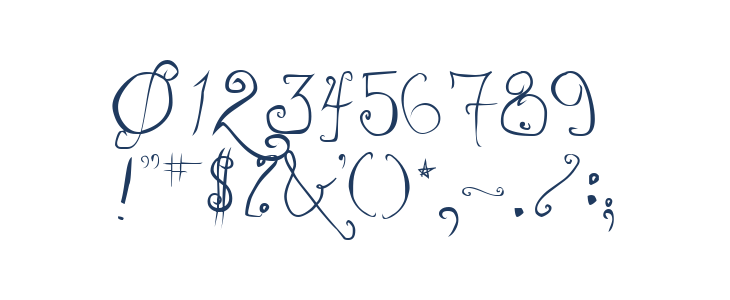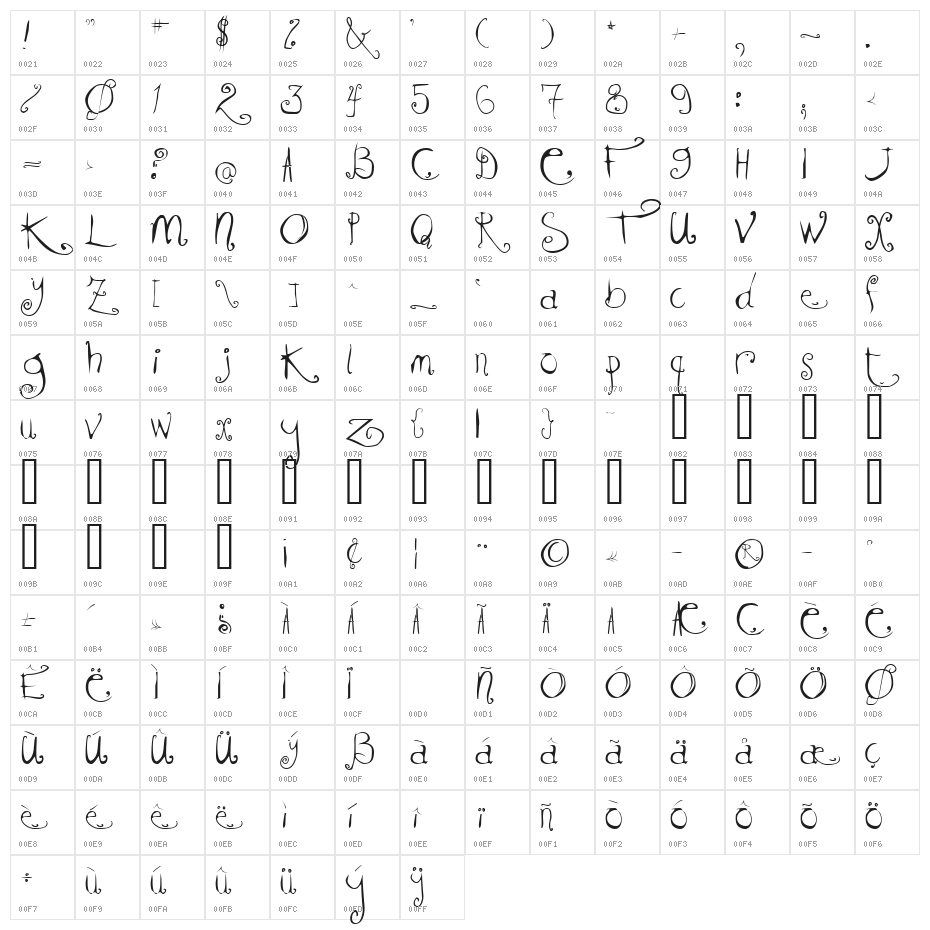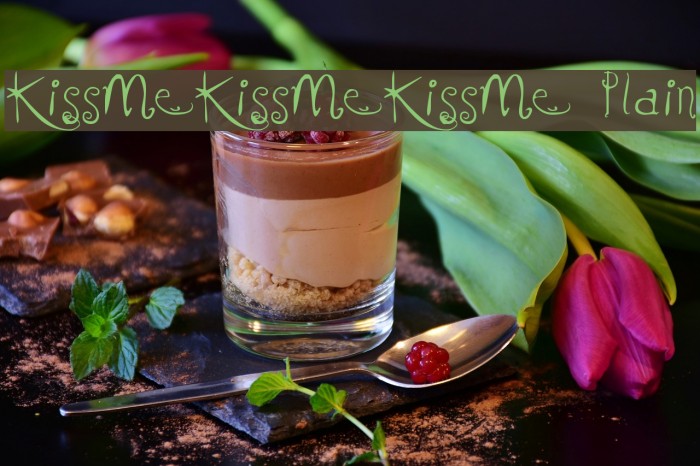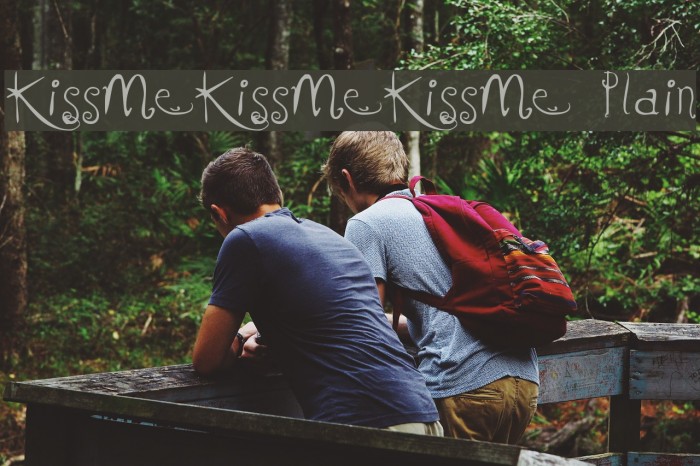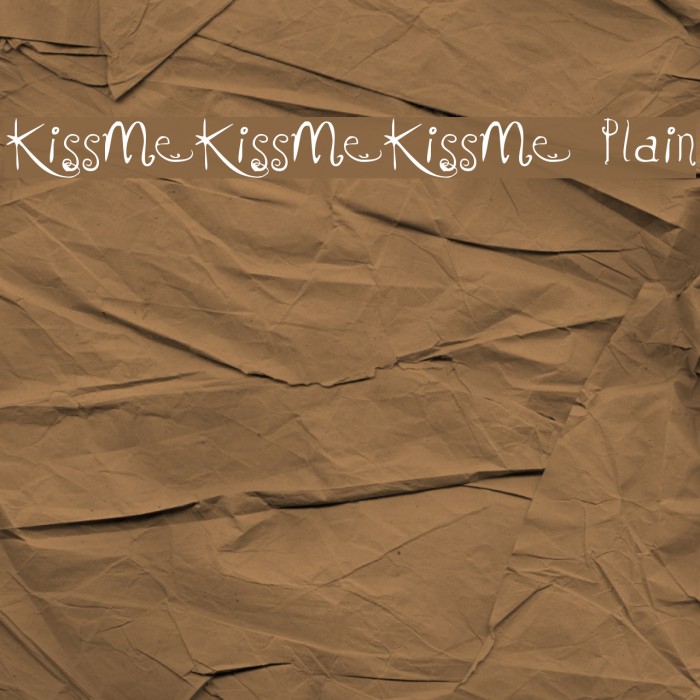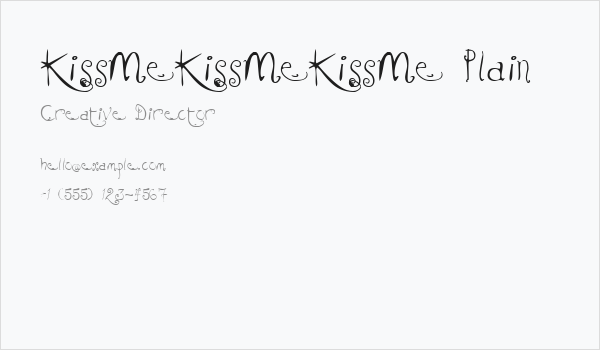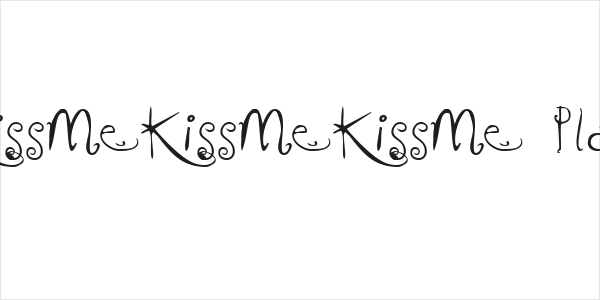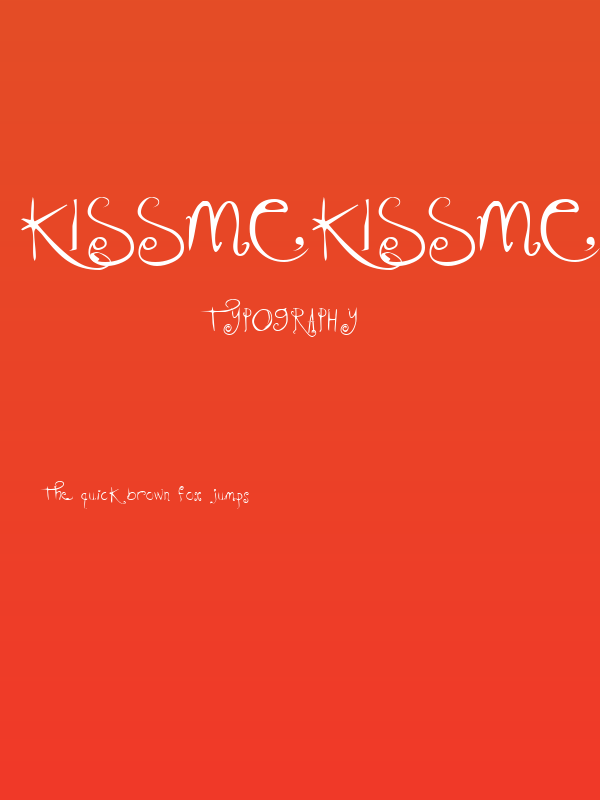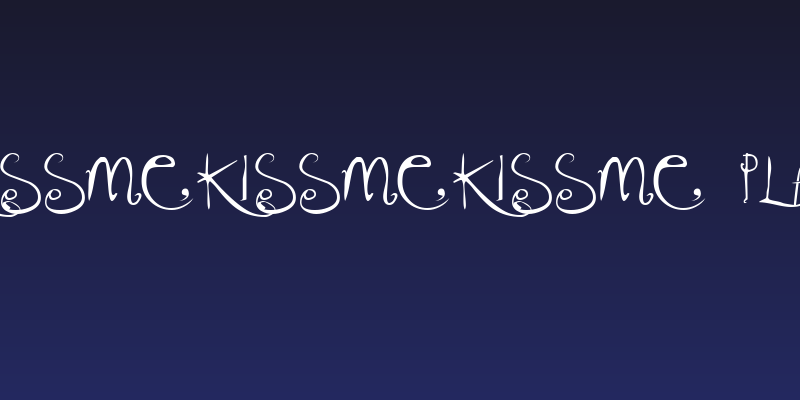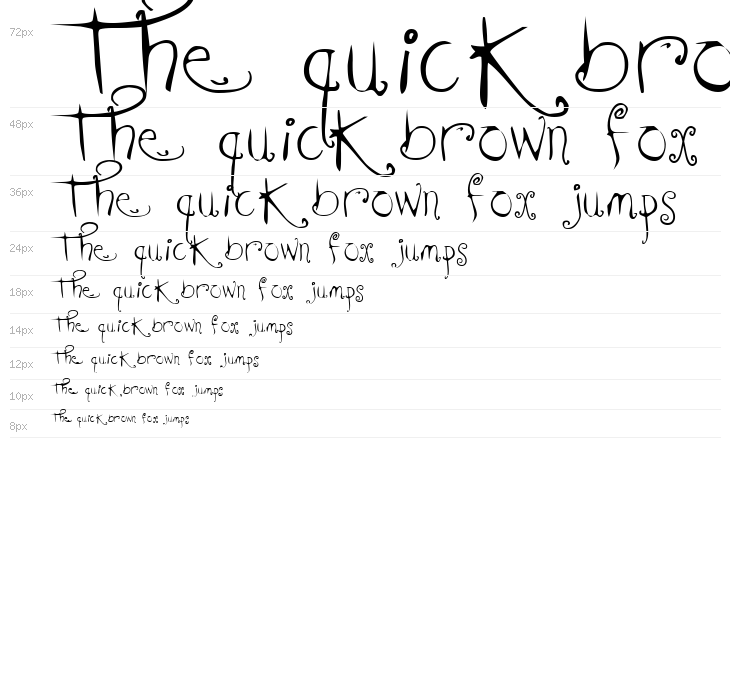
KissMeKissMeKissMe Plain Font
KissMeKissMeKissMe Plain Description
This whimsical and playful font features a unique blend of curly and swirly elements, giving it a distinctly artistic and decorative appearance. The uppercase and lowercase letters are characterized by their exaggerated curves and loops, creating a sense of movement and fluidity. The numerals and special characters maintain this playful style, with each character exhibiting its own quirky flair. The font's overall design is both eye-catching and expressive, making it ideal for creative projects that require a touch of whimsy and charm.
| Proposed Projects | Ideal for greeting cards, invitations, children's books, and playful branding projects. |